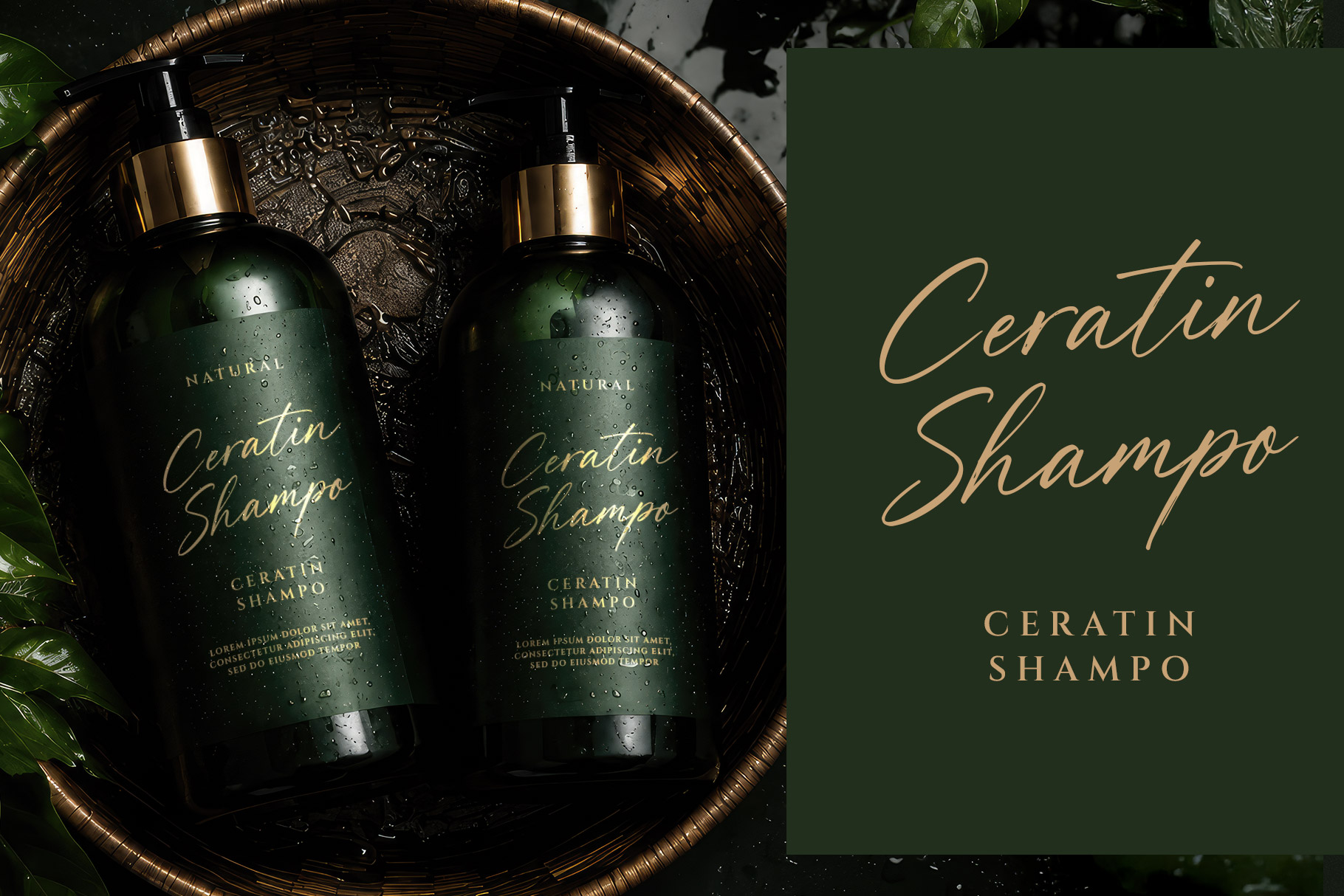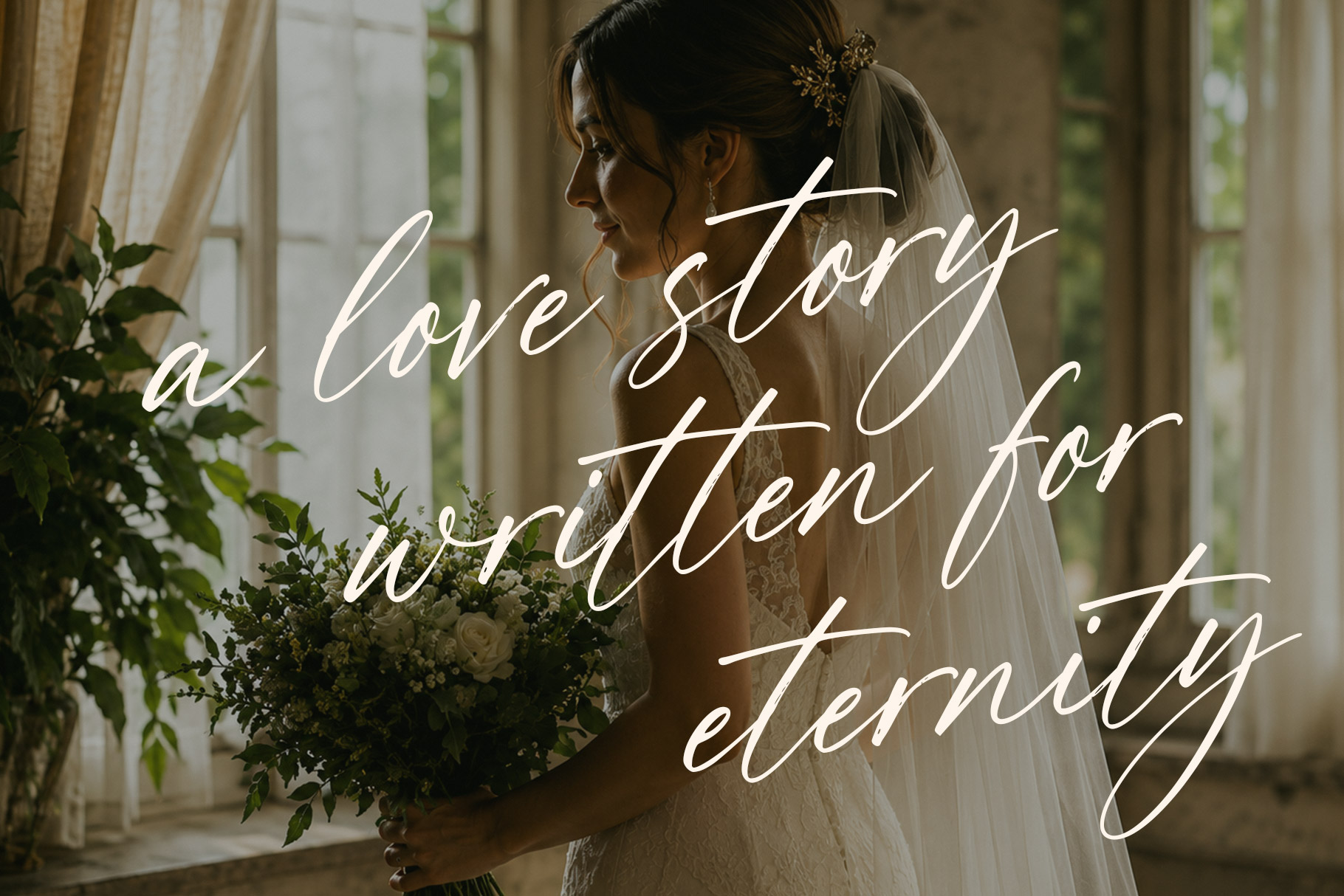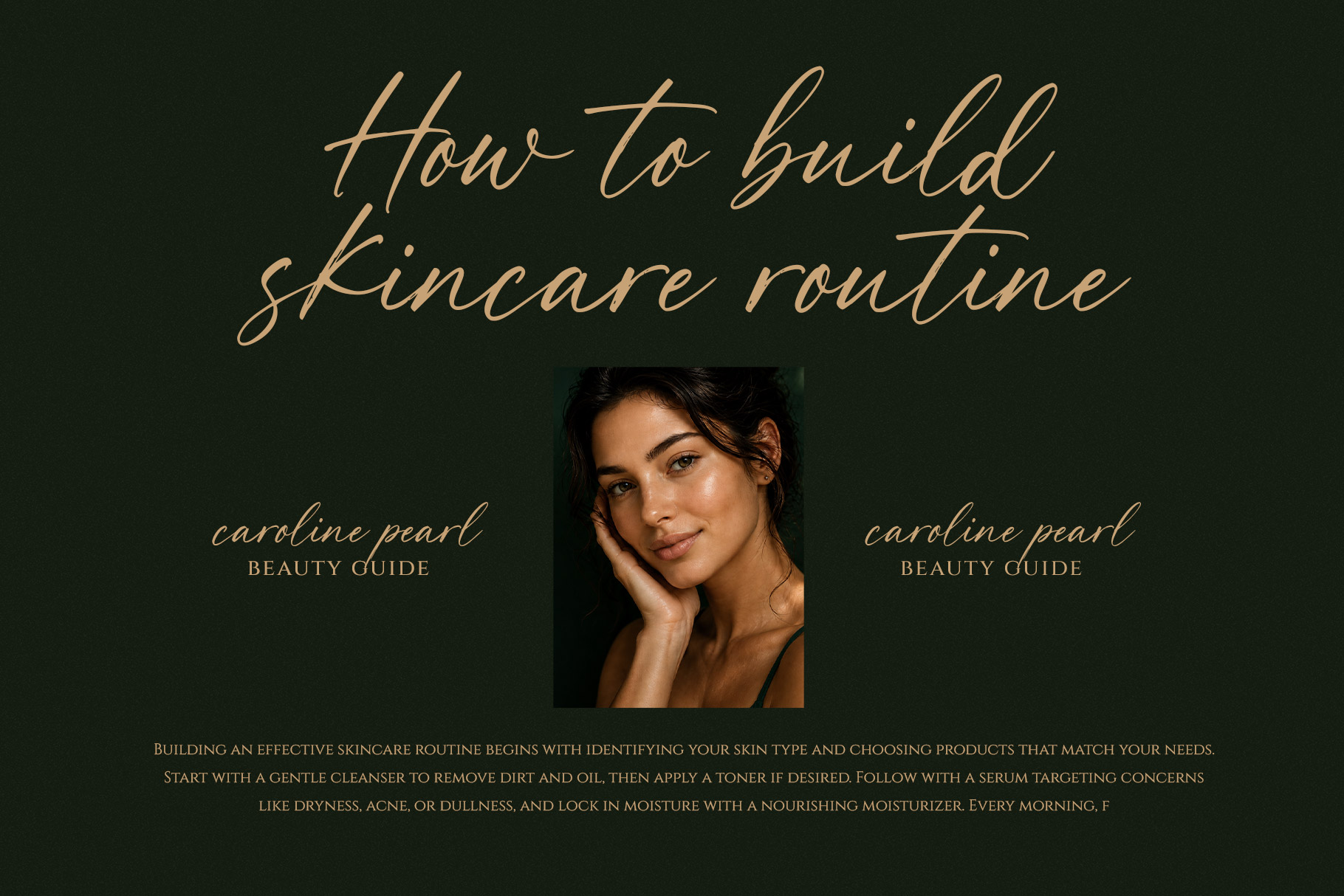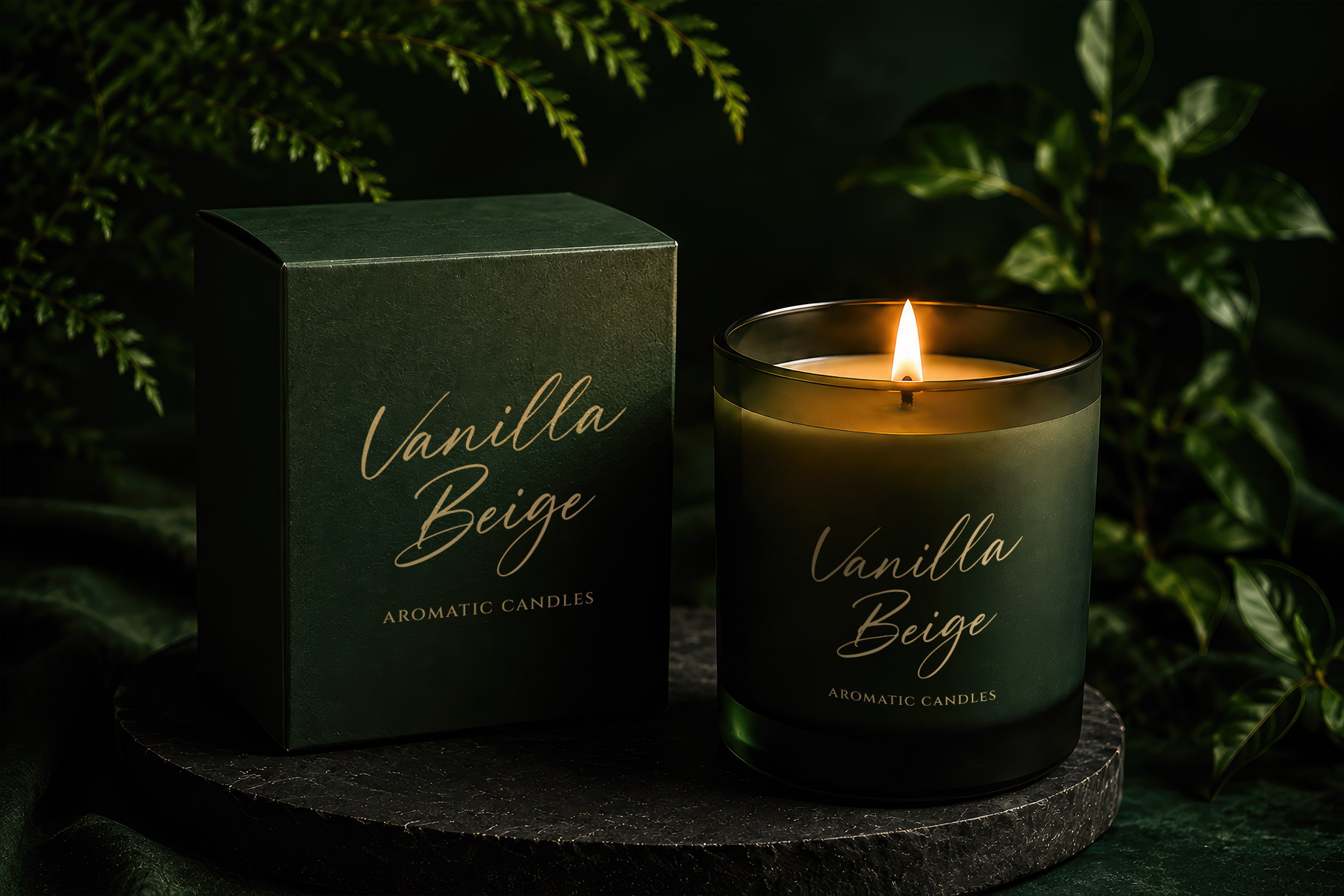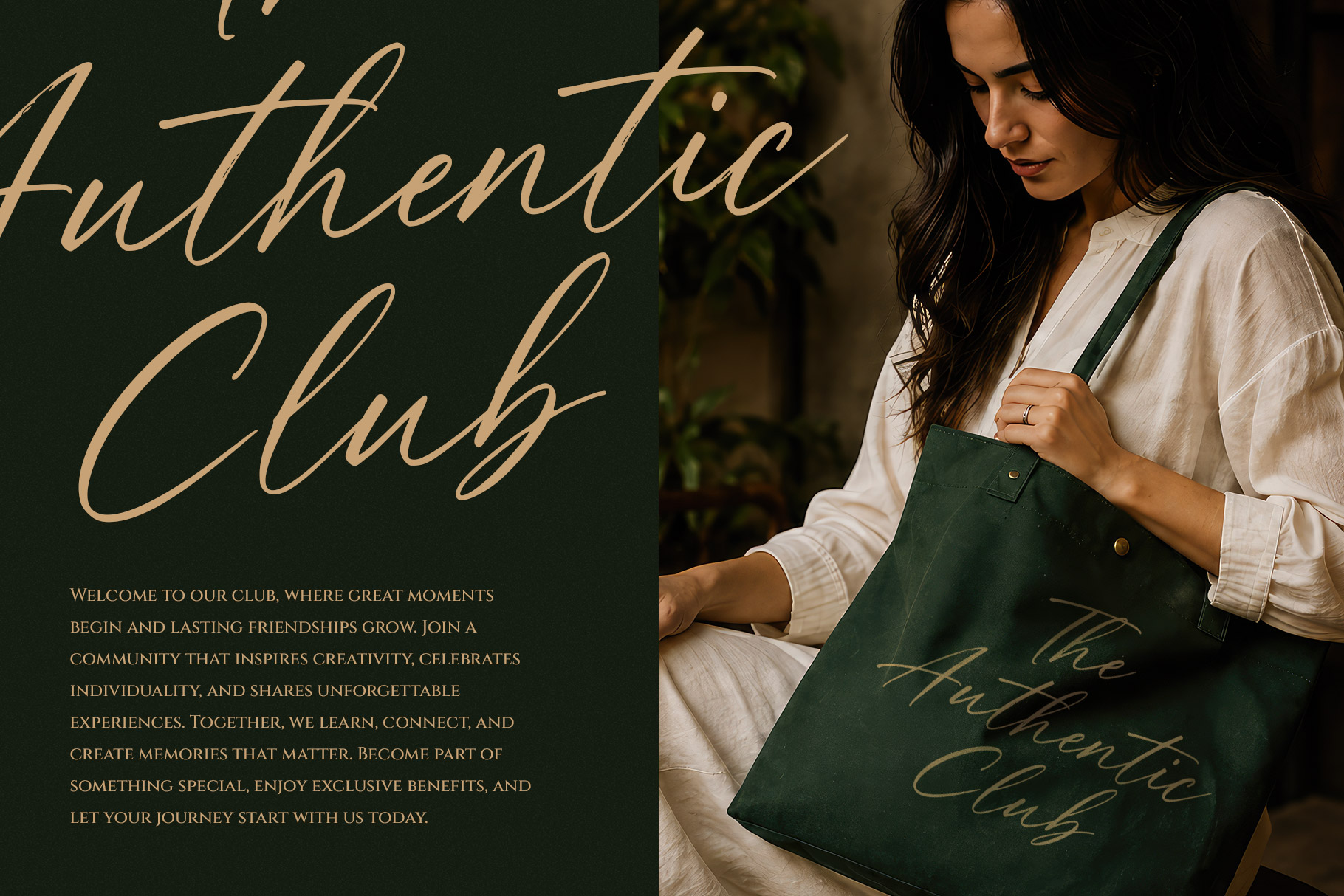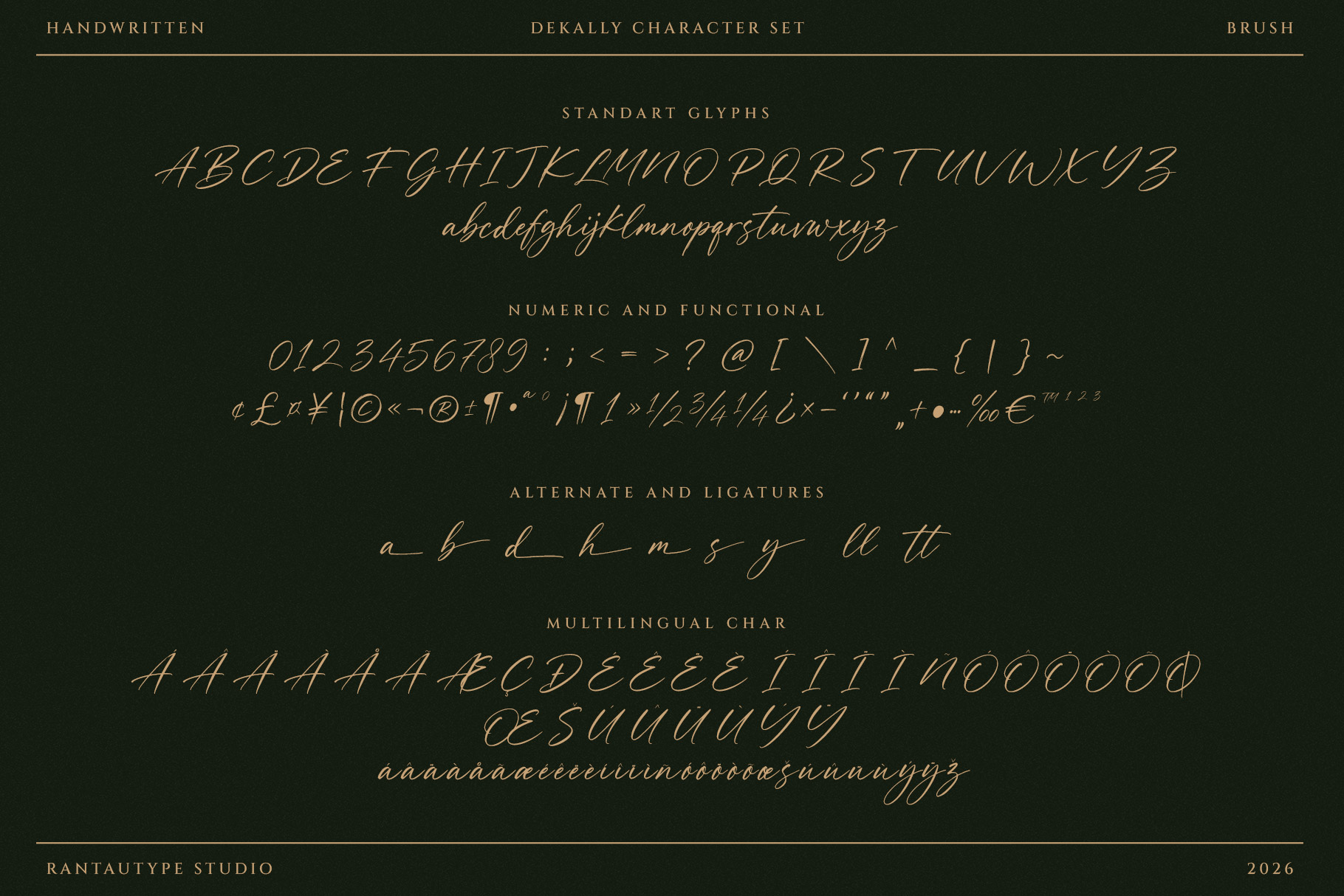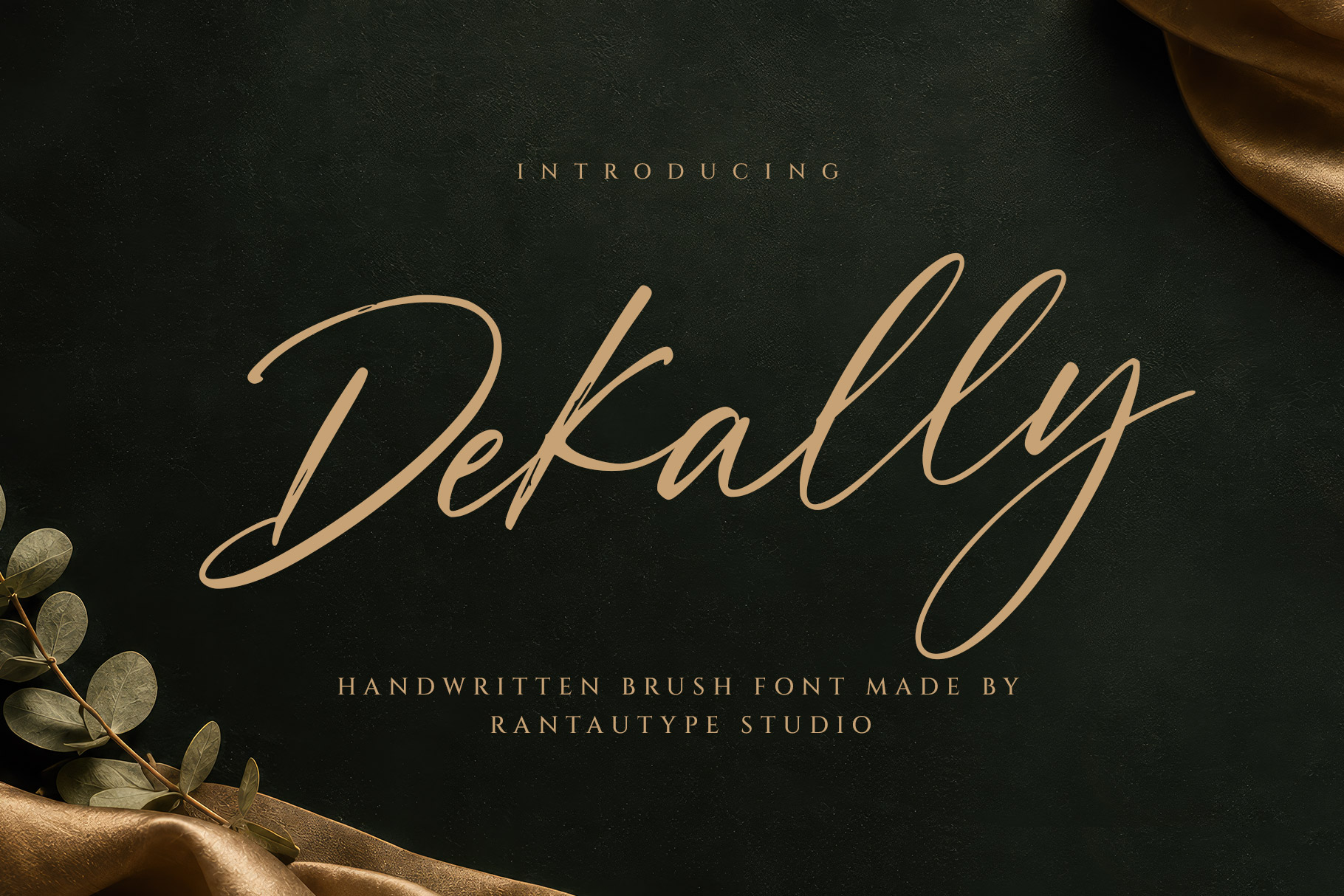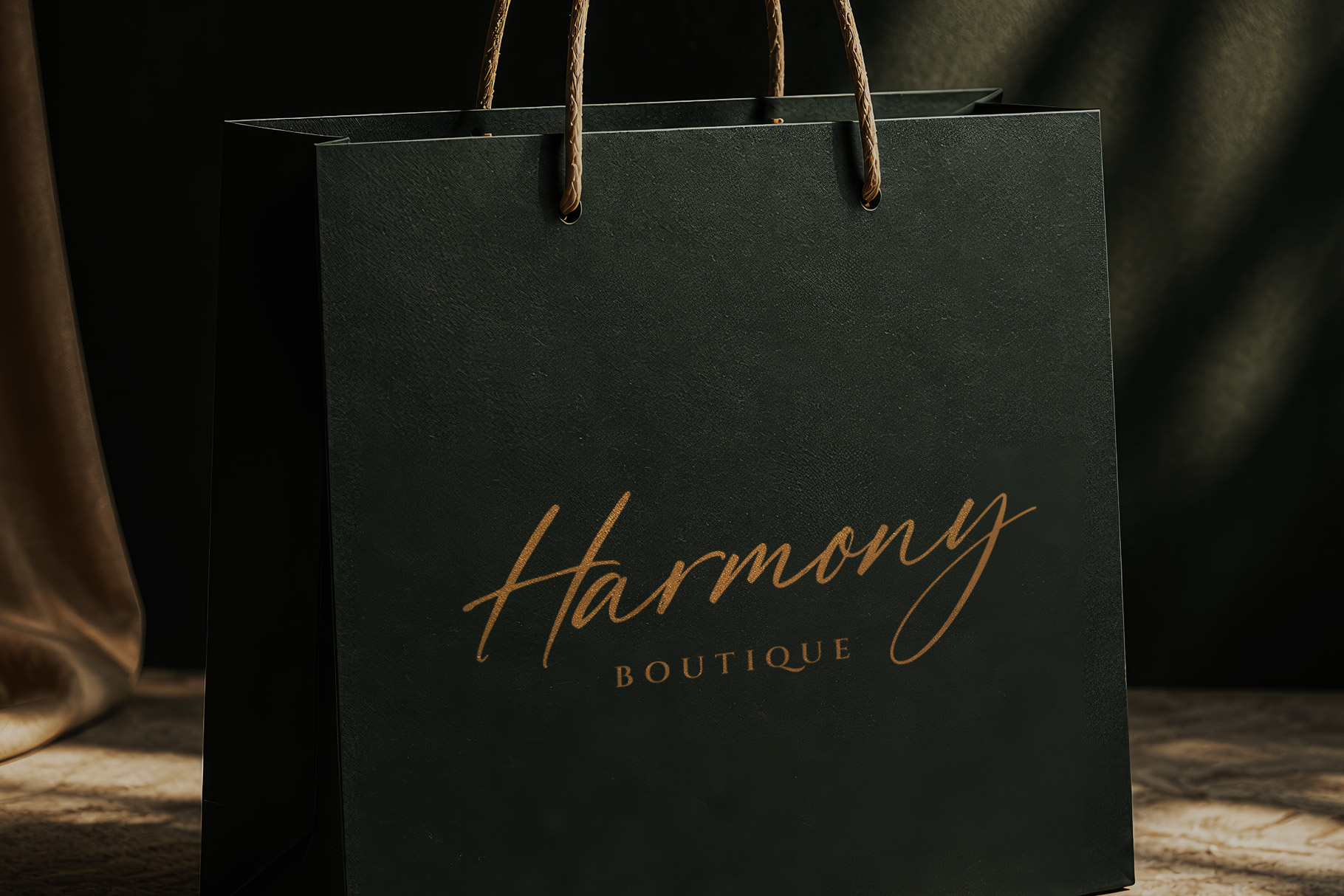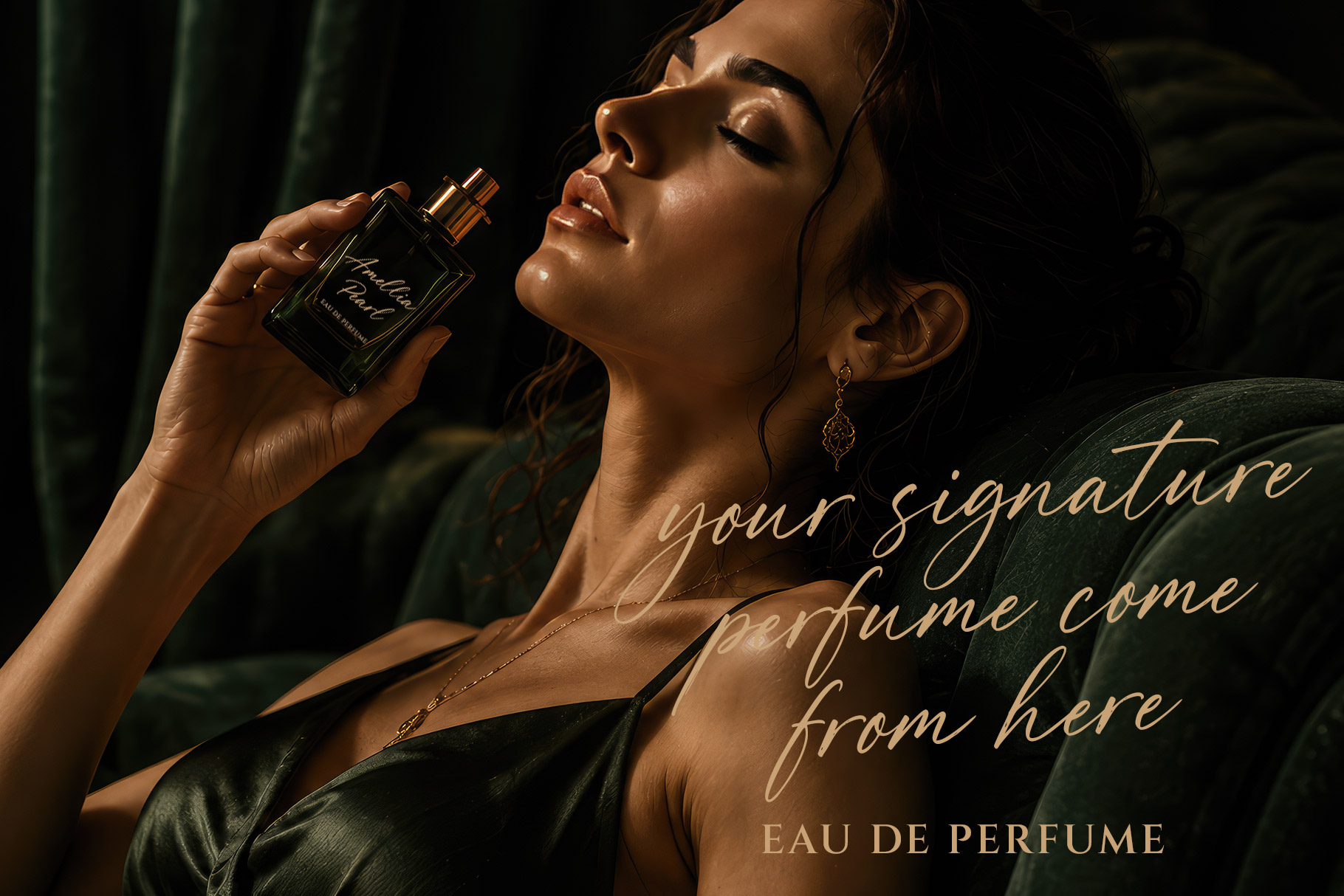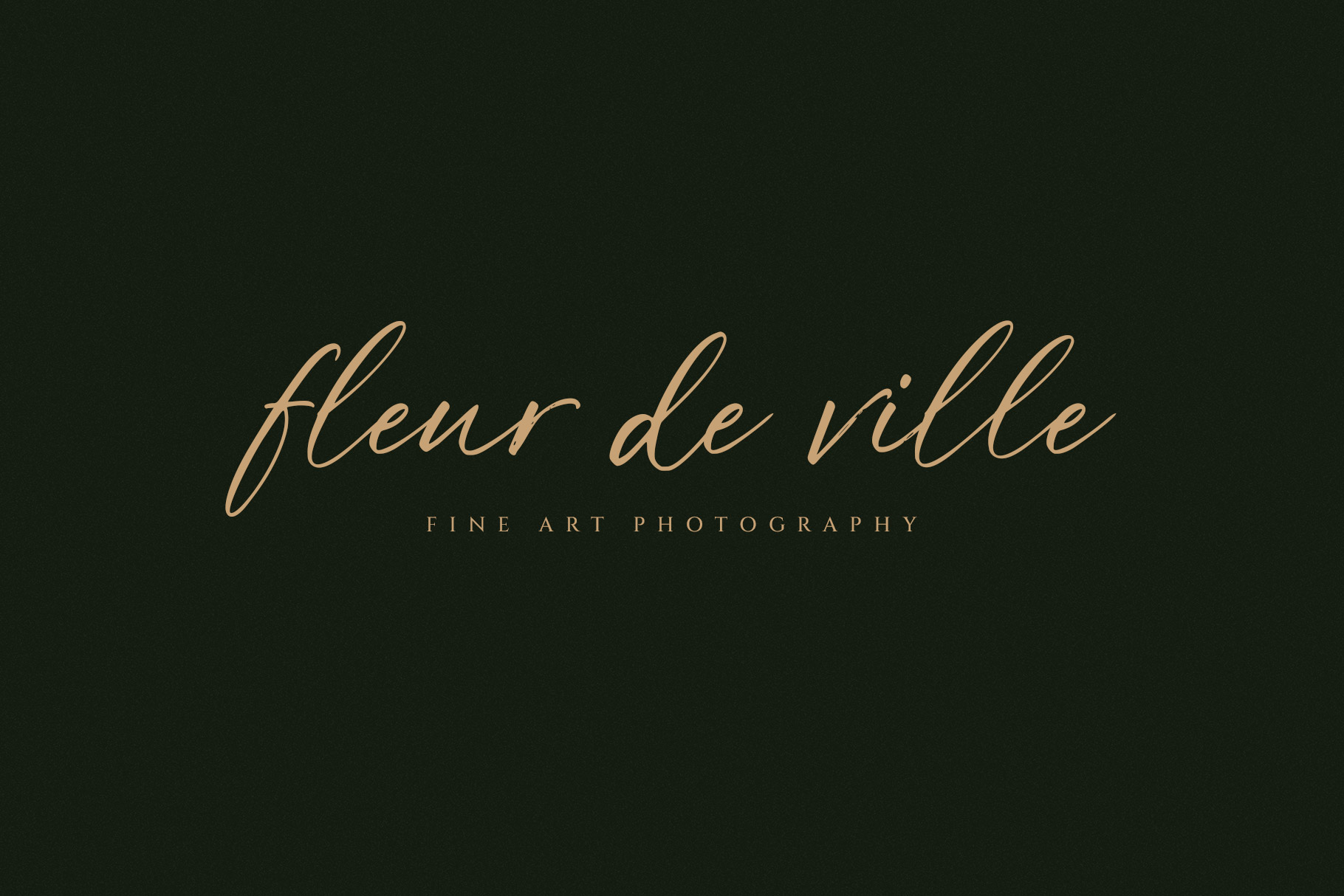
Dekally is handwritten brush font has a sophisticated, expressive character that combines elegance, fluidity, and natural movement. Its letterforms feel authentically hand-painted, with visible variations in stroke thickness that create a lively, organic rhythm.
Dekally is a perfectly choice for any creative endeavor, creating, modern, lifestyle design such as logotype, title, cover, branding, invitations, wedding designs, display and magazine, social media posts, advertisements, printed quotes, product packaging, corporate brand, product designs, labels, photography, watermarks, special events and any other project with elegant touch.
Dekally Handwritten Brush Font